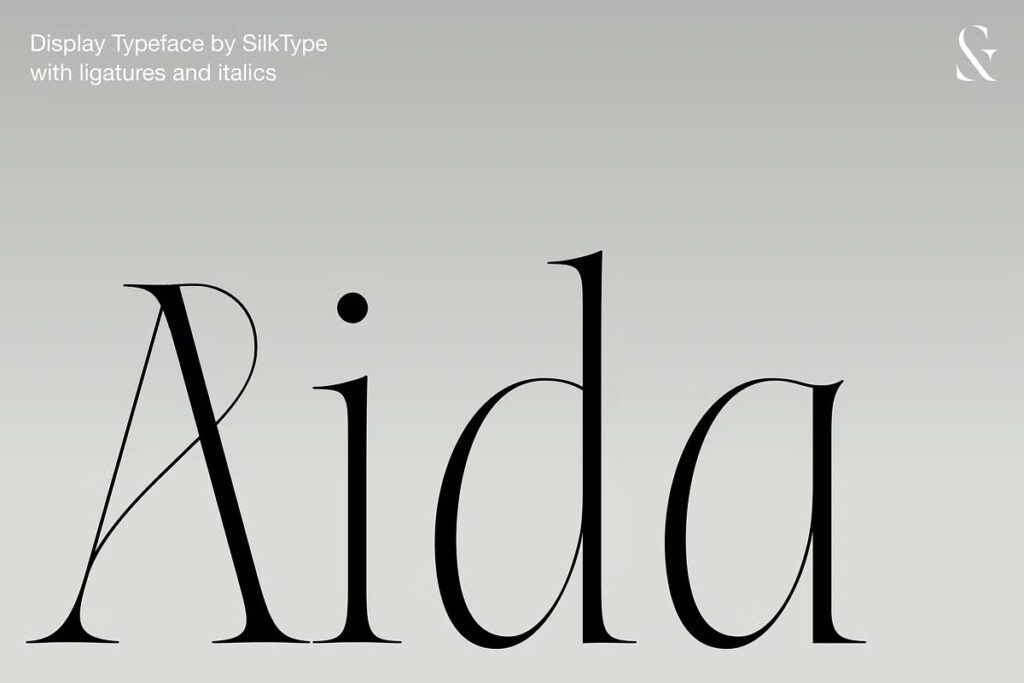
Aida – Elegant Ligature Serif Font for Premium Designs
In the world of luxury design, where details matter, the right typography can elevate your project to new heights. Aida, a high-contrast display font, is designed for those moments when elegance and sophistication need to shine through. With its delicate, extra-thin serifs and intricate ligatures, Aida delivers a refined aesthetic perfect for luxury branding, high-end editorial layouts, and bold design statements.
Why Choose Aida?
1. Elegant & Refined TypographyAida is crafted with thin serifs and hairlines, creating a unique high-contrast look that adds sophistication to any design. Whether you’re working on a luxury brand, a fashion editorial, or a premium website, Aida will add that touch of refinement to your project.
2. Versatile with Roman & Italic StylesAida comes in both Roman and Italic styles, providing flexibility to create varied and dynamic layouts. The flowing italic forms bring a sense of movement and grace, perfect for headings and subheadings that need to stand out with elegance.
3. Over 100 Ligatures & Alternate LetterformsUnlock your creativity with Aida’s expansive set of over 100 intricate ligatures and alternate letterforms. These features allow you to create custom typographic designs, making each project truly unique. Whether it’s a luxury brand’s logo, fashion campaign headlines, or artistic editorial spreads, Aida has the flexibility to meet your creative needs.
Ideal Uses for Aida
Luxury Branding: Perfect for fashion brands, jewelry, high-end products, and premium packaging designs that require a bold yet delicate statement.
Editorial & Magazine Layouts: The extra-thin serifs and hairline details bring a modern touch to magazine headlines, offering sophistication to every page.
Fashion & Beauty: Aida’s elegance makes it a great choice for fashion lookbooks, beauty campaigns, and any design that demands attention with subtlety.
Website Design: Enhance your website’s aesthetic appeal with Aida’s luxurious, high-contrast forms, ideal for premium brands.
Font Features of Aida
Available in Light & Light Italic styles
Over 100 intricate ligatures and alternate letterforms
High-contrast display with extra-thin serifs and hairlines
Perfect for branding, fashion, editorial design and more
Aida’s delicate and sophisticated design, paired with its high contrast and flowing forms, makes it the perfect font for projects that demand attention and refinement. If you’re working on a premium design project, this elegant ligature serif will help you achieve a look of timeless luxury and subtle flair.